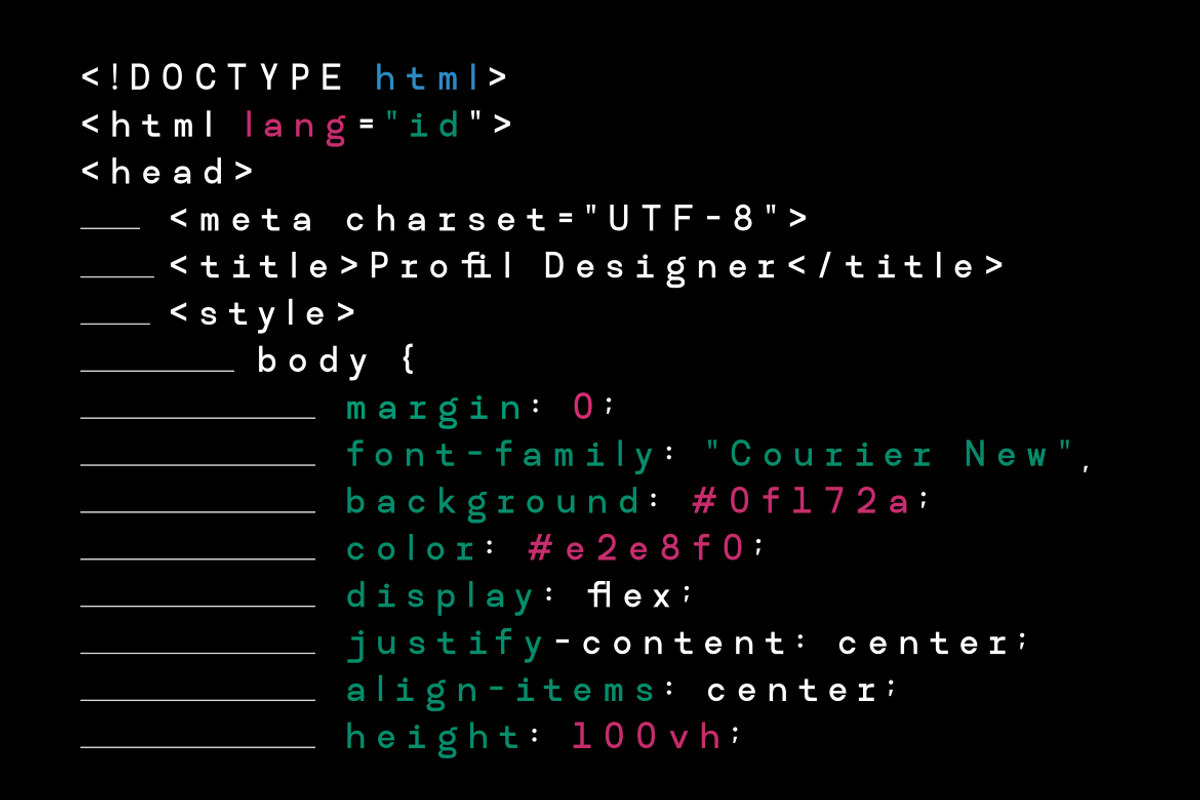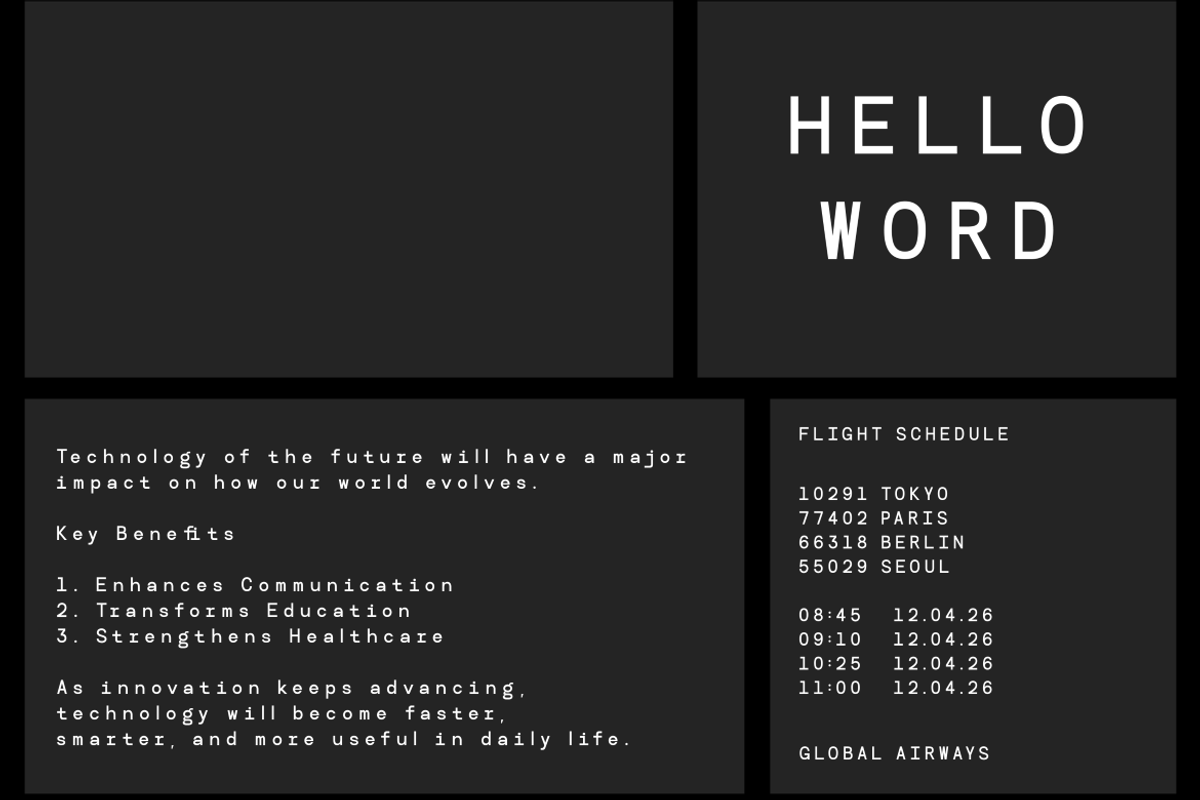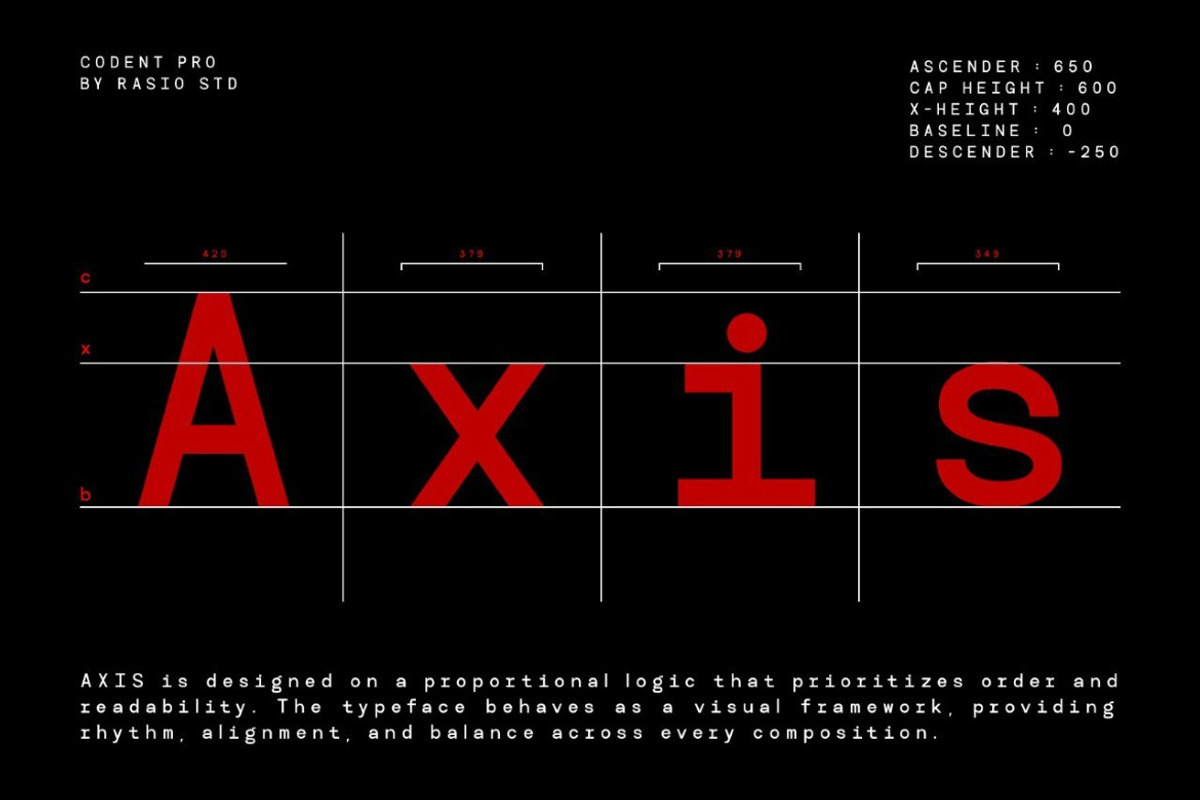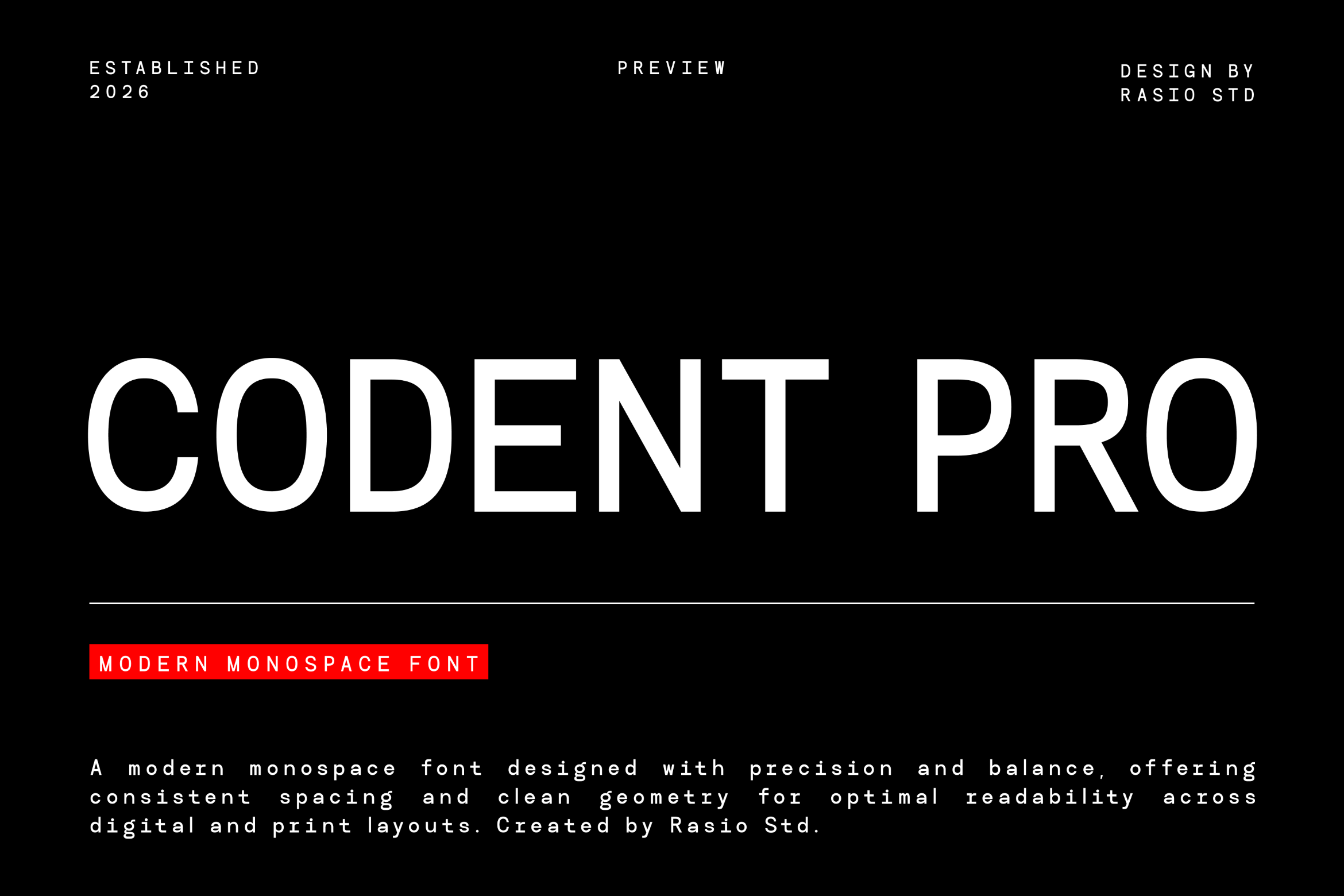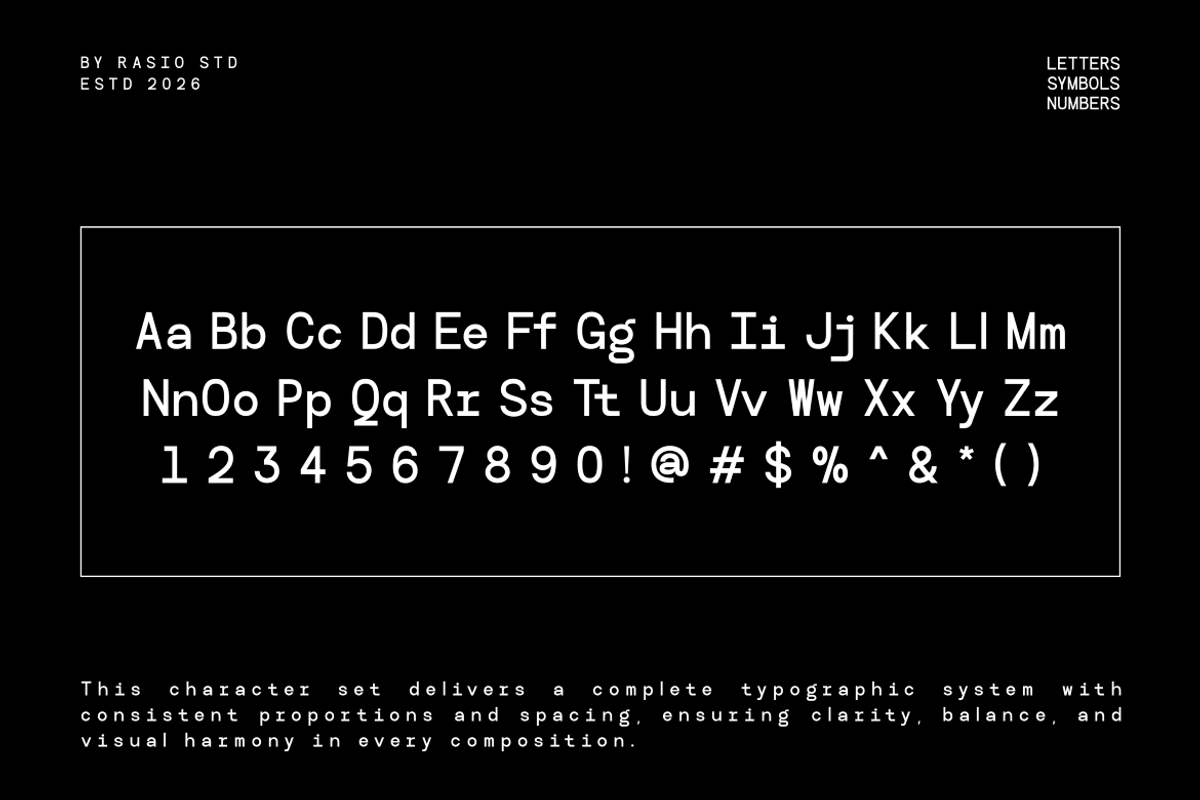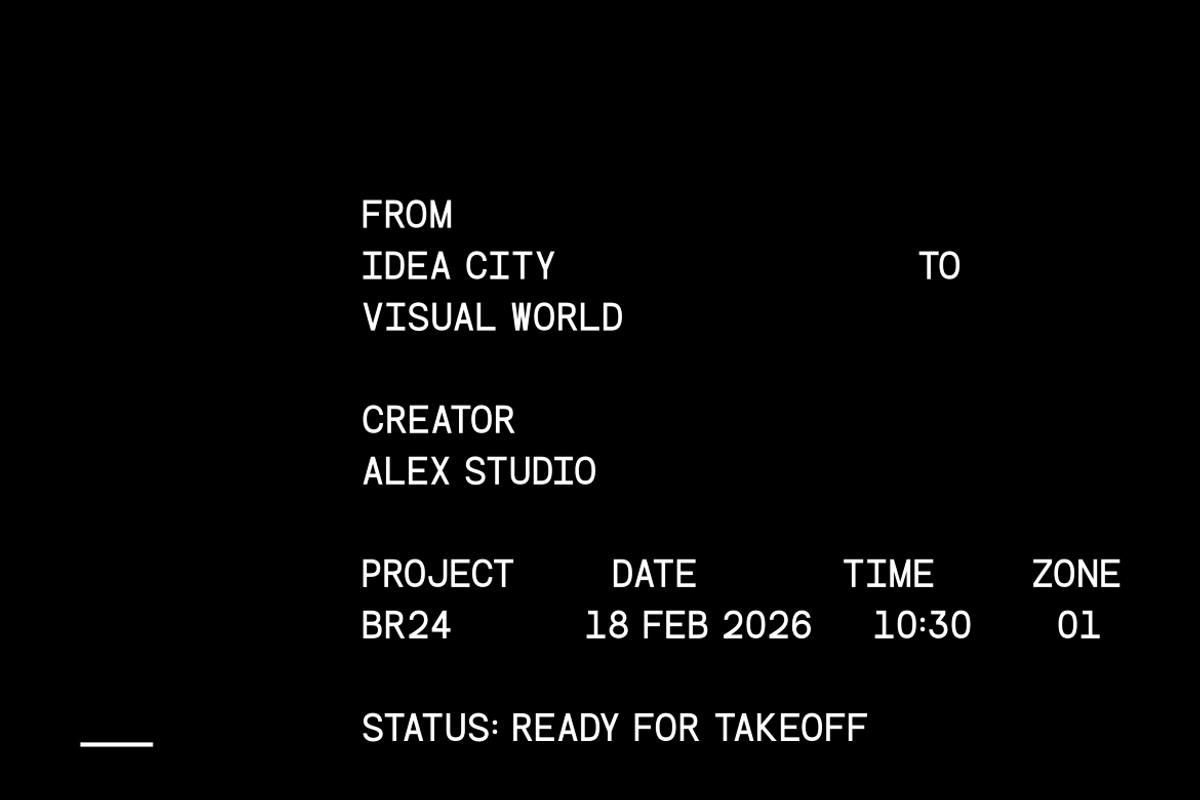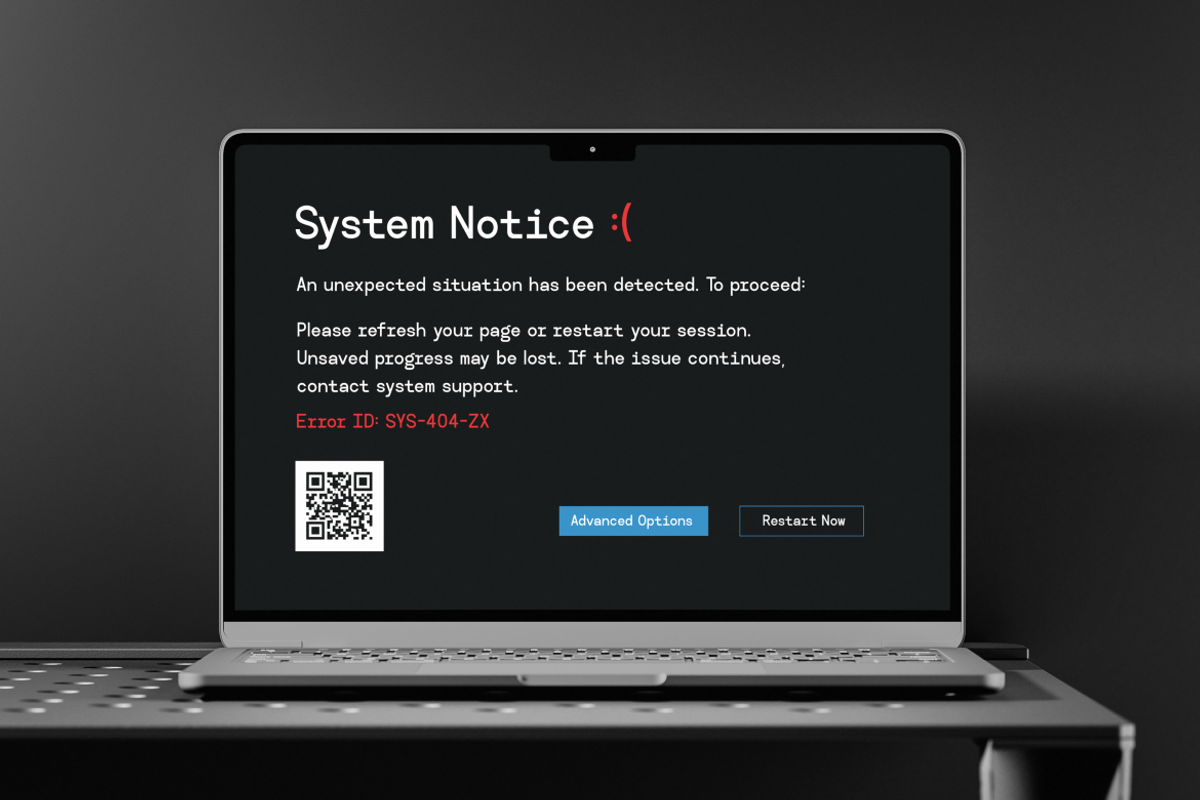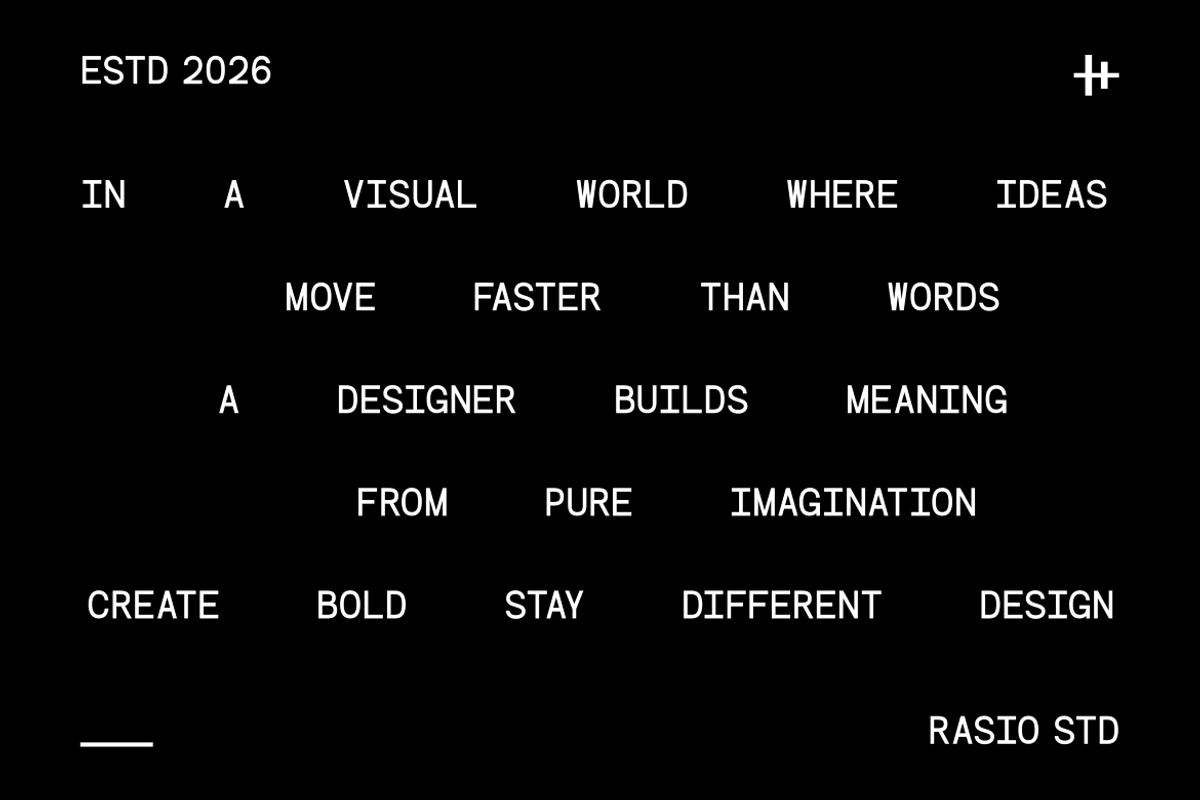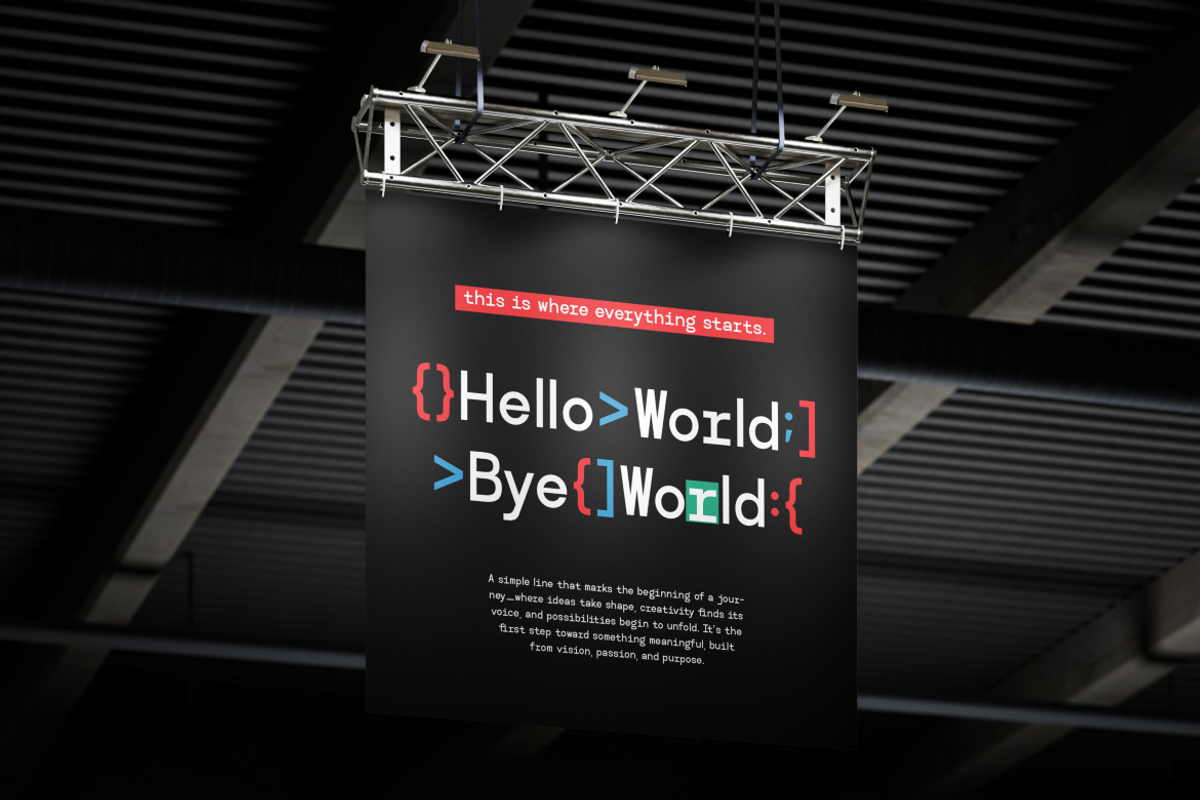
Codent Pro Modern Monospace Font
Codent Pro is a precision-crafted modern monospace typeface designed for clarity, structure, and contemporary digital environments. Built with consistent character width and balanced geometry, this font delivers a clean and highly legible visual rhythm across both screen and print applications. Its structured monospaced system ensures uniform alignment, making it ideal for coding interfaces, tech branding, editorial layouts, and modern identity systems.
Codent Pro is highly relevant for technology branding, software interfaces, UI/UX design systems, startup identities, coding environments, editorial layouts, dashboards, packaging for tech products, and modern corporate branding. Its monospaced structure ensures alignment precision, making it especially suitable for programming visuals, data-driven design, and futuristic brand aesthetics.
- Precision-built monospaced structure with consistent character width
- Clean geometric construction inspired by modern coding systems
- Balanced proportions for structured digital layouts
- Uniform spacing rhythm for optimal alignment and clarity
- Minimal detailing with sharp terminals for a contemporary tech aesthetic
- Tech startup branding and modern software identity systems
- UI/UX design templates for apps, dashboards, and web platforms
- Coding interfaces, developer tools, and tech presentations
- Editorial layouts with structured, system-based typography
- Digital marketing materials for technology and innovation brands